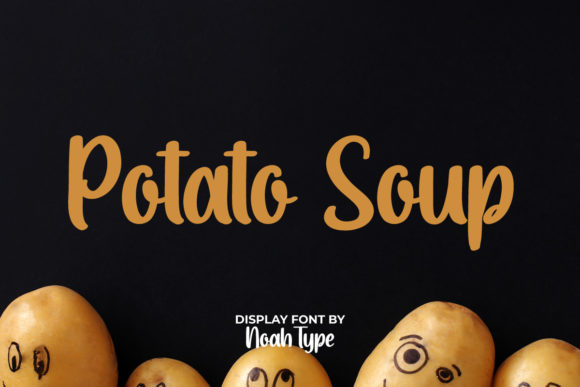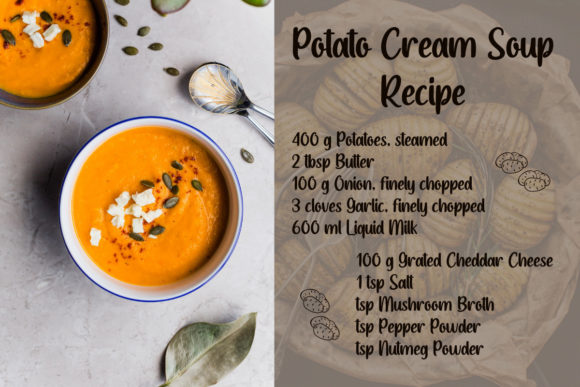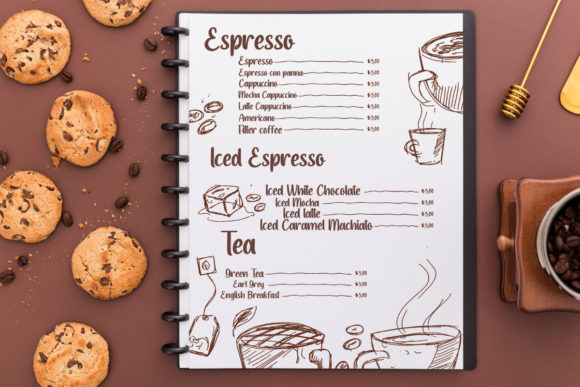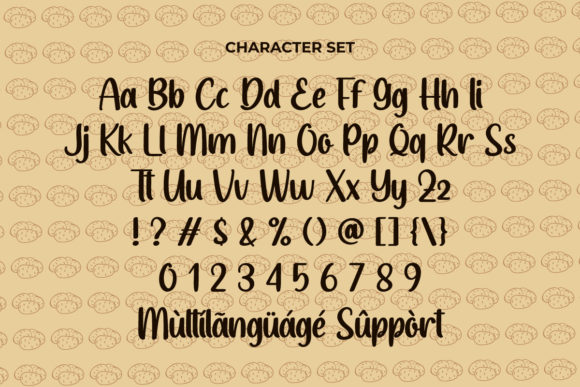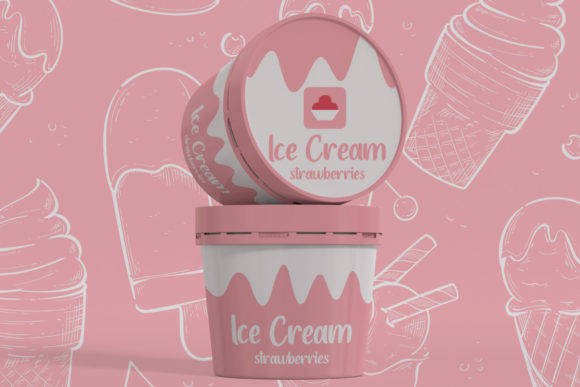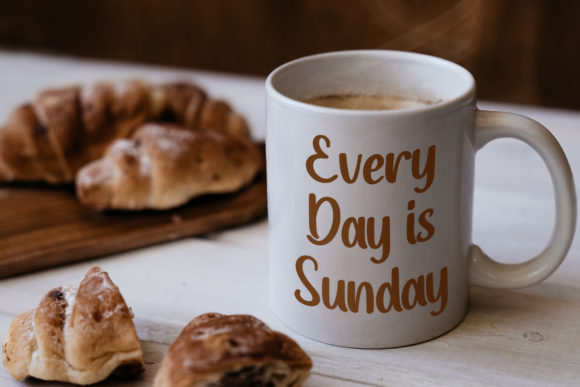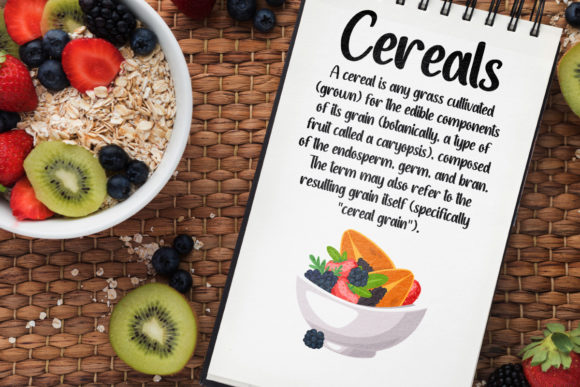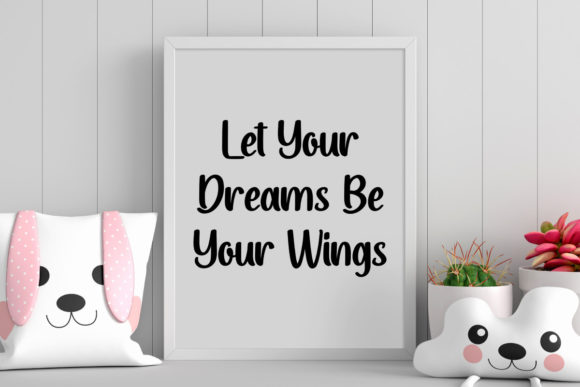
Potato Soup Font is a fun display font inspired by some delicious food menus in fast-food restaurants. Every single line of it has been carefully crafted to create a natural free-flowing look that will perfect your extraordinary project. This playful font is for anyone who needs casual and fun designs. It will work beautifully for comics, invitations, events, movies, donuts, food, menus, restaurants, cafés, children’s books, school materials, kids’ products, social media posts, and many more!